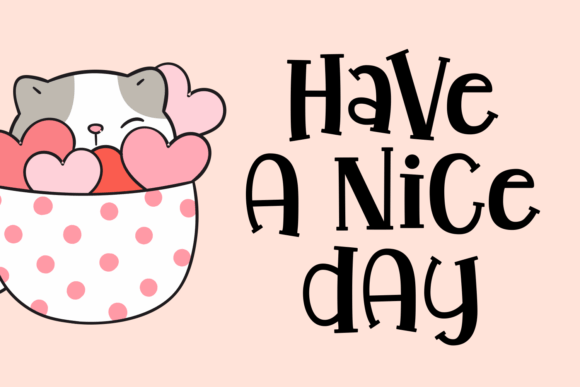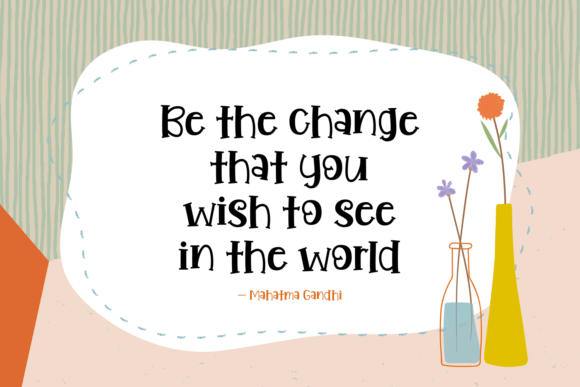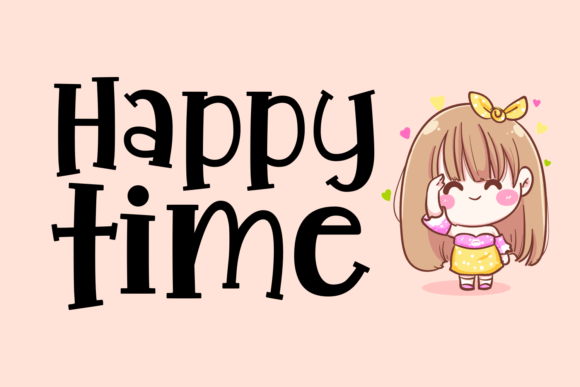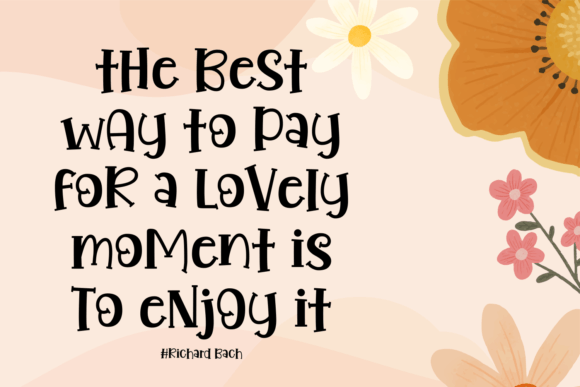
Blessed Forever Font: The Ultimate Choice for Playful and Whimsical Designs
Are you a designer or crafter looking for a font that embodies the carefree spirit of childhood? Look no further than the Blessed Forever Font. This delightful font is the epitome of playful and childish, making it perfect for kids’ projects, whimsical designs, and any creative endeavor that requires a touch of innocence and wonder.
The Characteristics of Blessed Forever Font
So, what makes the Blessed Forever Font so unique? For starters, its rounded edges and bouncy baseline give it a charming, hand-written feel that’s reminiscent of a child learning to write. The letters are slightly tilted, conveying a sense of movement and excitement that’s sure to capture the attention of your audience.
One of the most distinctive features of the Blessed Forever Font is its irregularity. The letters are not perfectly uniform, which adds to the font’s playful and organic feel. This makes it an excellent choice for designs that require a personal touch, such as children’s books, greeting cards, and craft projects.
Perfect for Kids’ Projects and Whimsical Designs
The Blessed Forever Font is an excellent choice for any project that requires a playful and childish touch. Here are just a few ideas for how you can use this font in your designs:
• Children’s books and storybooks: The Blessed Forever Font is perfect for creating engaging and interactive stories for kids.
• Greeting cards and invitations: Add a touch of whimsy to your cards and invitations with this delightful font.
• Craft projects: Use the Blessed Forever Font to create custom labels, tags, and other embellishments for your craft projects.
• Playful posters and flyers: Grab the attention of your audience with a bold and playful design featuring the Blessed Forever Font.
Why Designers and Crafters Love the Blessed Forever Font
So, why do designers and crafters love the Blessed Forever Font? Here are just a few reasons:
• It’s versatile: The Blessed Forever Font can be used for a wide range of projects, from kids’ books to craft projects.
• It’s easy to read: Despite its playful feel, the Blessed Forever Font is surprisingly easy to read, making it perfect for designs that require a clear and concise message.
• It’s customizable: The Blessed Forever Font can be easily customized to fit your design needs, from changing the color to adjusting the size.
• It’s fun: Perhaps most importantly, the Blessed Forever Font is just plain fun! It’s the perfect way to add a touch of whimsy and playfulness to your designs.
Tips for Using the Blessed Forever Font
Here are a few tips for getting the most out of the Blessed Forever Font:
• Use it sparingly: While the Blessed Forever Font is playful and fun, it can be overwhelming if used too much. Use it sparingly to add a touch of whimsy to your designs.
• Pair it with other fonts: The Blessed Forever Font pairs well with other fonts, such as bold and sans-serif fonts. Experiment with different combinations to find the perfect look for your design.
• Experiment with colors: The Blessed Forever Font looks great in a variety of colors, from bright and bold to pastel and soft. Experiment with different colors to find the perfect look for your design.
In conclusion, the Blessed Forever Font is a versatile and fun font that’s perfect for designers and crafters looking to add a touch of whimsy and playfulness to their designs. With its rounded edges, bouncy baseline, and slightly tilted letters, this font is sure to capture the attention of your audience and bring a smile to their faces.